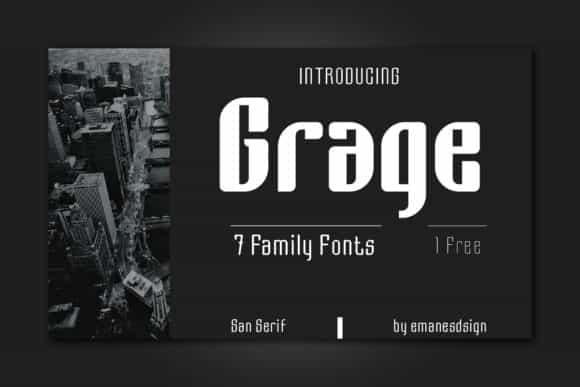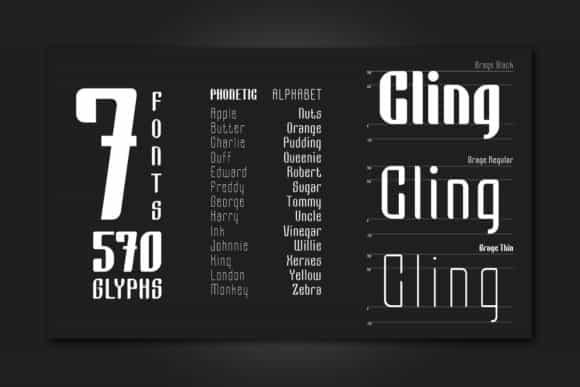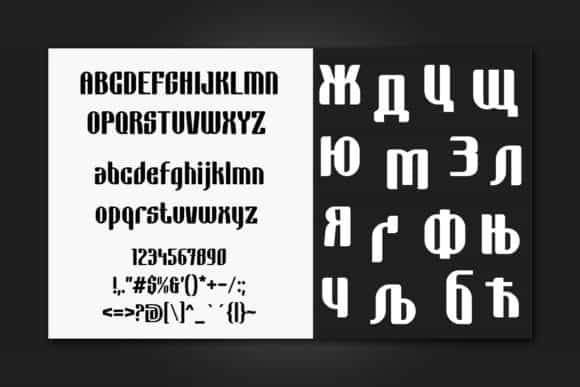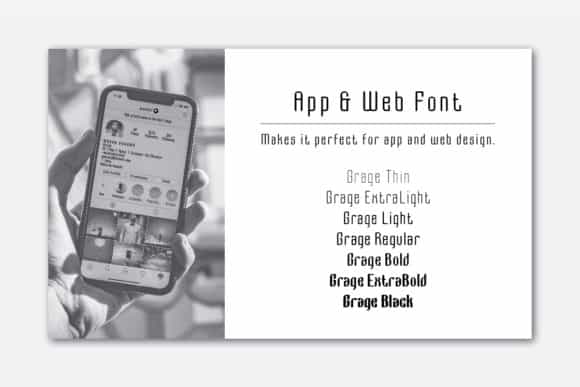
Grage is a striking and distinctive sans serif font. It is suitable for a variety of designs because of its simple and clean design, Grage has the potential to become your preferred font, whatever the event!